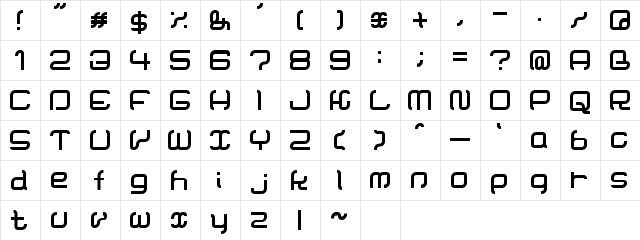
Cornering Regular
Design Context for Cornering Typeface
Cornering takes a measured approach to typography — its balanced proportions and neutral character make it a reliable workhorse for both digital and print work.